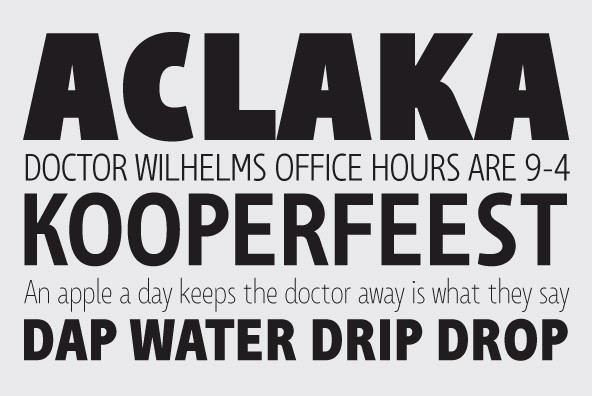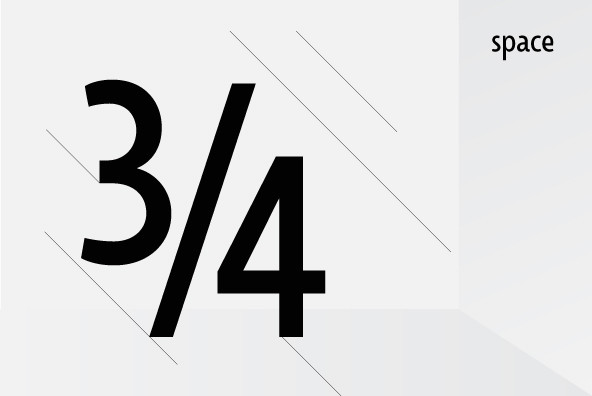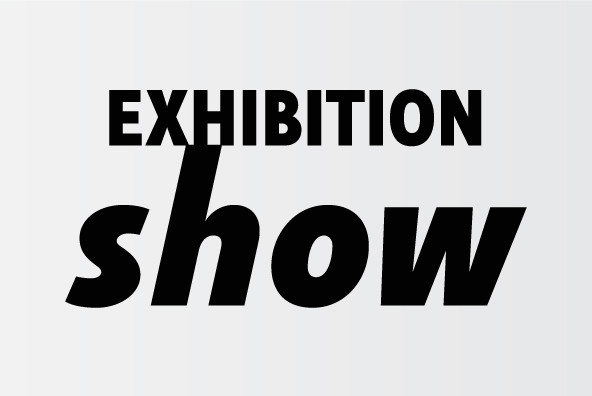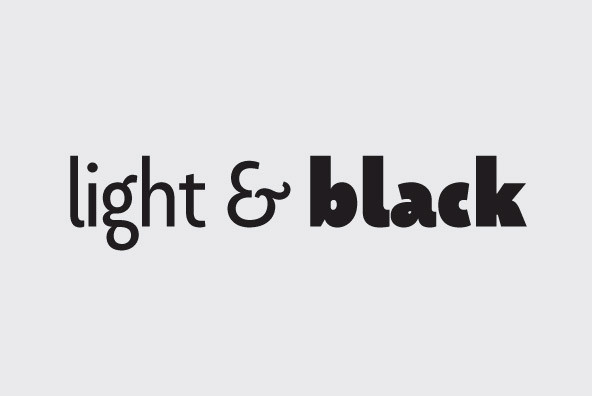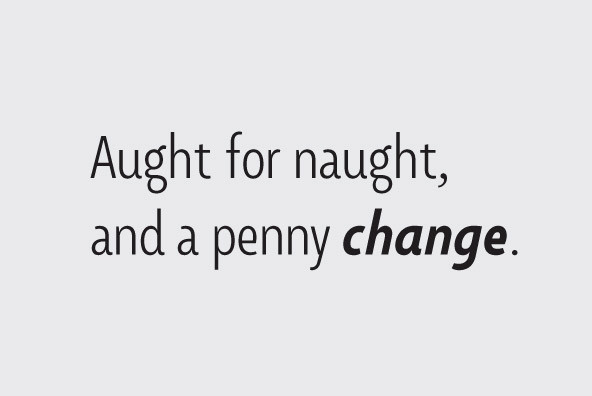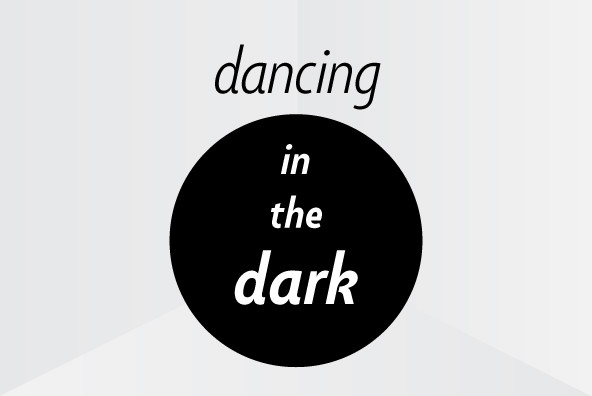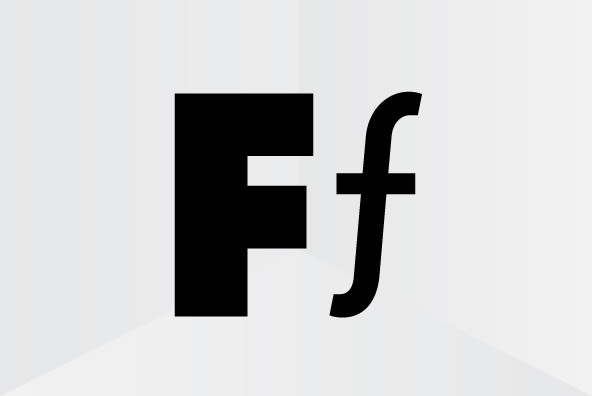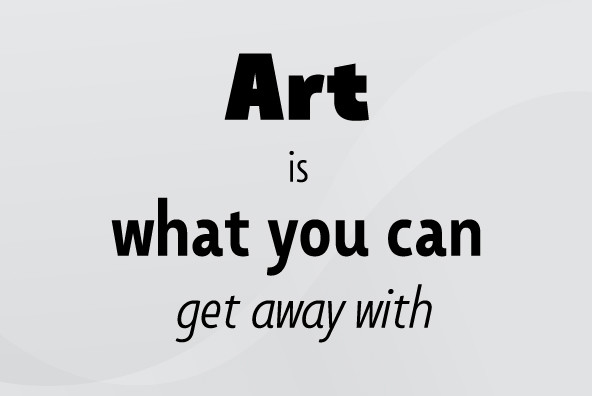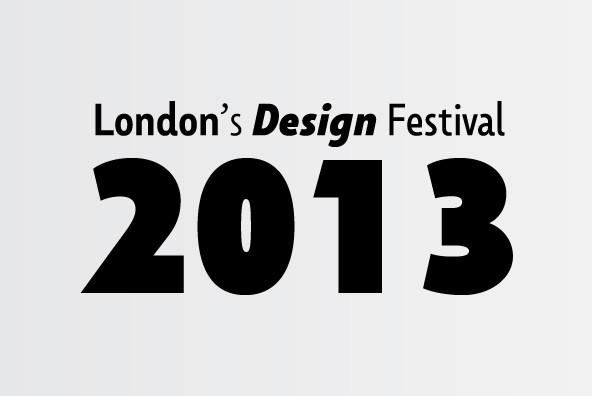
Foundry: Suomi Type Foundry
A modern and quirky sans-serif, Taffee comes with 6 weights plus italics. Unique and interesting characters in this alphabet include the ampersand, lowercae q and lowercase a.